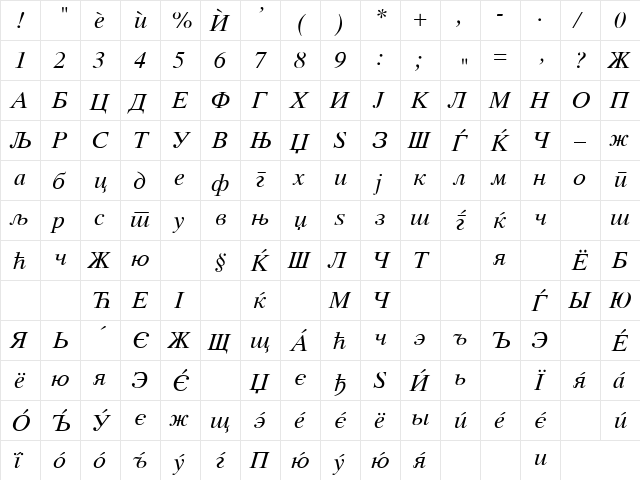
Makedonski Tajms Italic
Design Context for Makedonski Tajms Typeface
Makedonski Tajms offers clean, dependable letterforms without strong stylistic allegiance, making it a practical choice for designers who need flexibility. The slanted form adds forward momentum and visual energy.
Pro Tip: Try Makedonski Tajms for annotation and caption copy alongside an upright companion — the contrast in angle creates a dynamic but ordered typographic system.